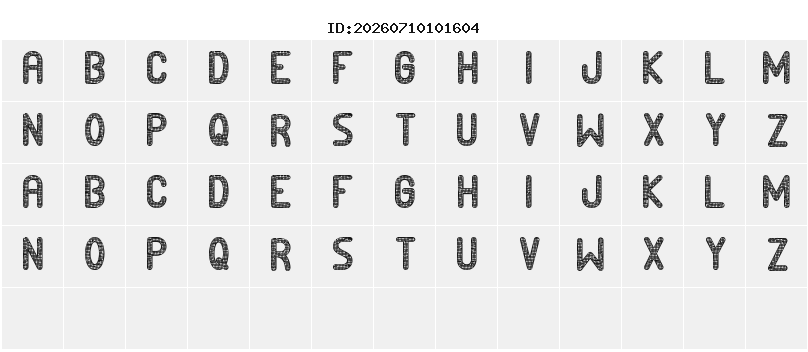
Edournida St Preview
• Font Name: Edournida St
• Full Font Name: Edournida St
• Description: Edournida st
About Edournida St.ttf
Edournida St.ttf is a modern, elegant sans-serif font designed for ultimate readability and visual harmony. Perfect for branding, headlines, web design, and print materials.